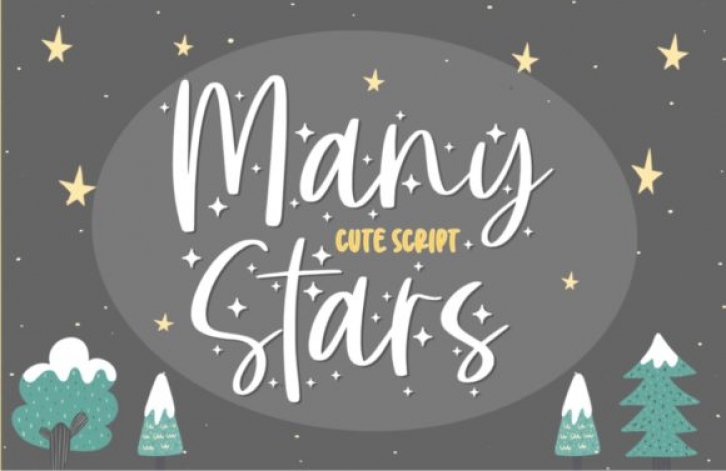
Many Stars is a beautiful handwritten font. It features a lovely Christmas theme. Fall in love with its magical feel and take your Christmas crafting projects to the next level!